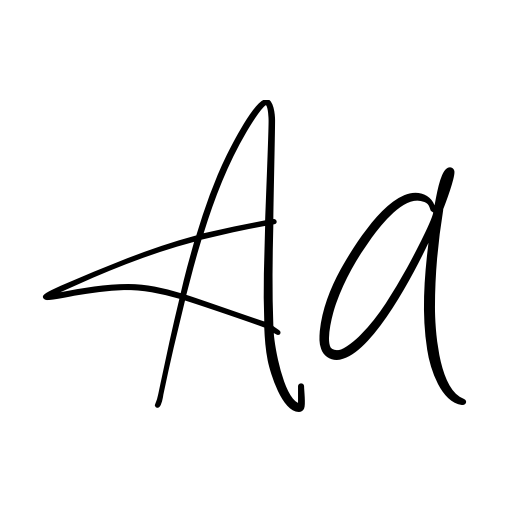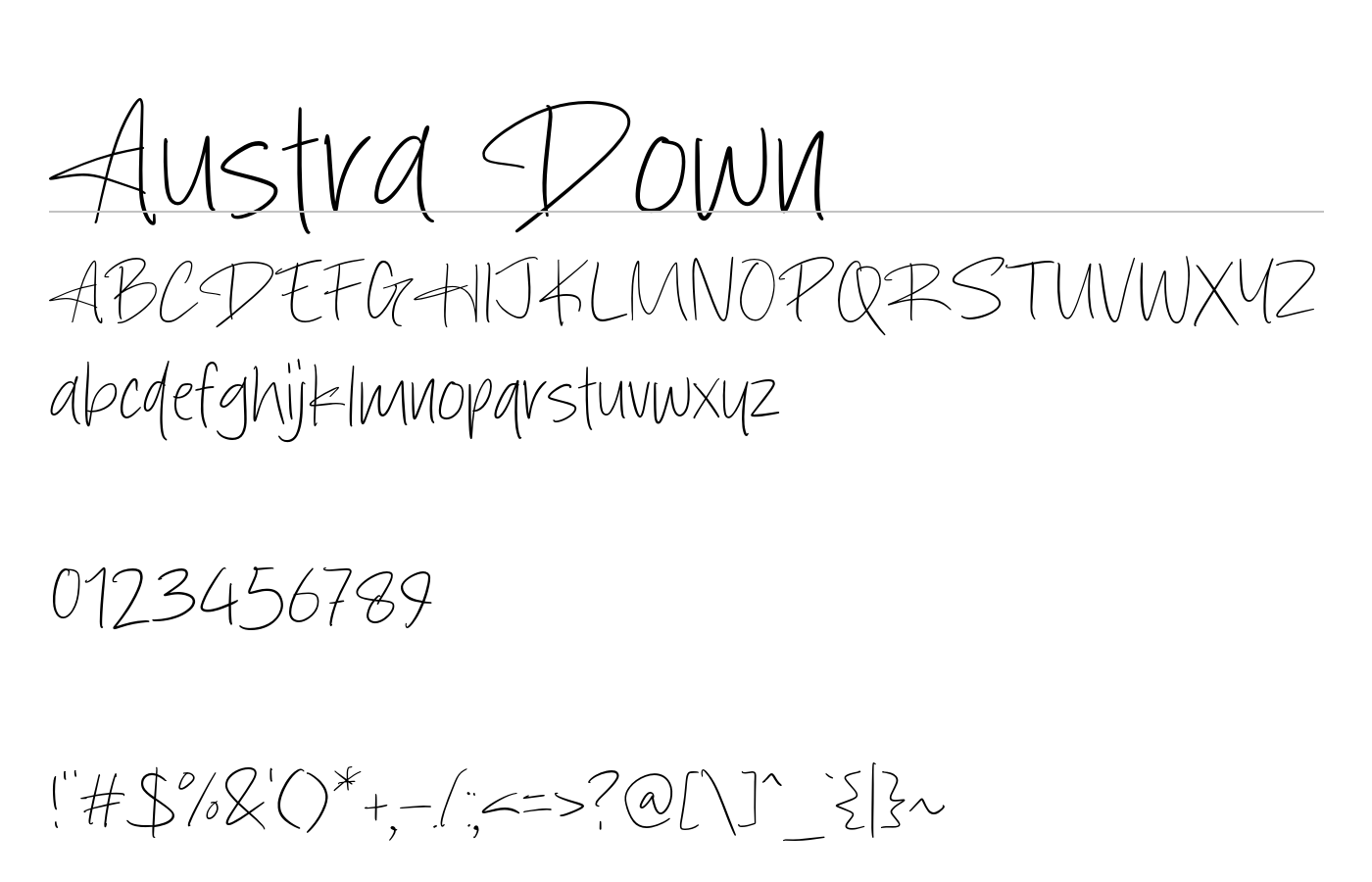
Austra Down is a casual, handwritten font with a light, airy feel characterized by its slender, tall letterforms and uneven stroke flow, mimicking natural penmanship. It conveys a personal, approachable vibe, making it ideal for creative projects, informal branding, and invitations where a friendly, authentic touch is desired. This font works best in headlines, logos, and designs that benefit from a relaxed, artistic aesthetic.
Austra Down Font
About Austra Down Font